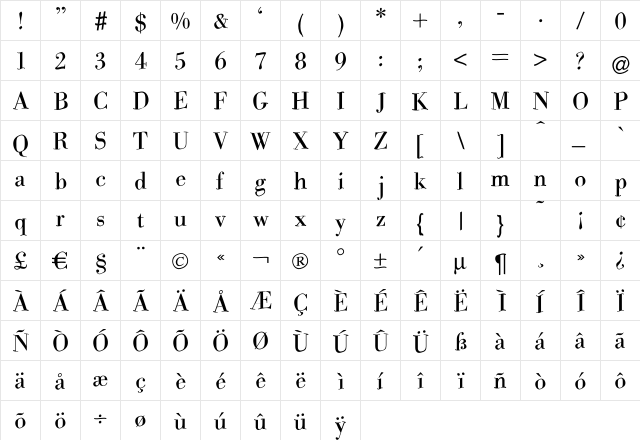
Tangodoni Regular
Design Context for Tangodoni Typeface
Tangodoni is a composed and adaptable typeface that performs quietly and consistently across a wide range of design contexts.
Pro Tip: Pair Tangodoni with a font of contrasting weight or personality to build a more expressive typographic hierarchy.